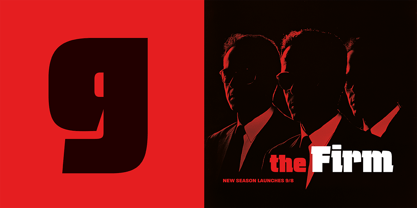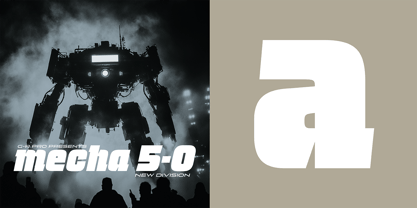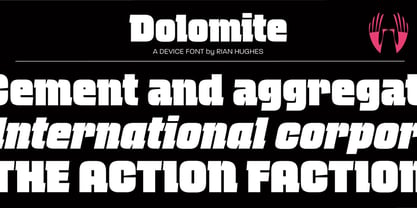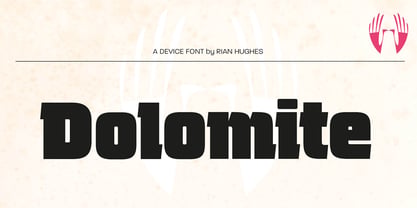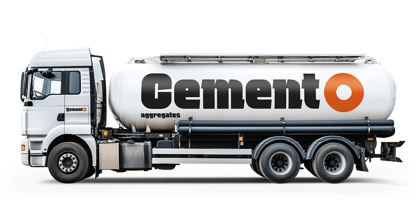
Dolomite
La familia tipográfica Dolomite fue diseñada por Rian Hughes y publicada por Device. Dolomite contiene 2 estilos y opciones de paquete familiar. Más información sobre esta familia
Dolomite is a heavy impactful sans with wedge sterifs top left and bottom right. It has a strong industrial or corporate aesthetic, and is suitable for bold punchy logos, action movies, the tech and construction industry, the automobile sector, and men's products of all kinds – anything where a serious weight and presence is important.
Diseñadores: Rian Hughes
Fundición actual: Device
Device Fonts is the font arm of Rian Hughes’ Device studio, based in West London. An early contributor to FontShop’s FontFont range, Device Fonts was launched in 1997 to carry Hughes’ growing library. It has since released over 250 original typefaces covering more than 1500 individual weights, including custom designs for clients as diverse as Mac User, 2000AD and The Teenage Mutant Ninja Turtles. Rian studied at the London College of Communication in London before working for an advertising agency, Smash Hits, i-D magazine and a series of record sleeve design companies. Under the studio banner Device, he now provides design, custom type and illustration for advertising campaigns, record sleeves, book jackets, graphic novels and television. He has designed posters for Tokyo fashion company Jun Co.’s Yellow Boots chain, the animated on-board safety film for Virgin Airlines, Eurostar’s poster campaign, a collection of Hawaiian shirts, a range of watches for Swatch, an award-winning brochure for MTV Europe’s Music Awards, and numerous book jacket illustrations and CD covers. He has designed hundreds of logos for DC, Marvel, Valiant, Image and other comic book companies for such titles as Batman, the X-Men, James Bond, The Avengers and Spider-Man. Long connected with the world of comics, Rian Hughes' first graphic novel was The Science Service for Belgian publisher Magic Strip. This was followed by Dare for IPC’s short-lived Revolver, an “iconoclastic revamp of the ’50s comic hero Dan Dare”, written by Grant Morrison. His strips from the Galaxy’s Greatest have been collected in Yesterday’s Tomorrows (Dare, Really and Truly plus others) and Tales from Beyond Science (written by Mark Millar, John Smith and Alan McKenzie). More recently he wrote and drew a Batman: Black and White tale, contributed to Vertigo: Magenta, designed the map of the DC Multiverse and was reunited with Morrison for several stories in Heavy Metal magazine. He has contributed to numerous international exhibitions, lectured widely both in the UK and internationally, and a one-man show of his work was held in 2003 the Conningsby Gallery, London. A retrospective monograph, Art, Commercial was published in 2002, and Ten Year Itch, a celebration of the first ten years of Device Fonts, was published in 2005. Other books include https://www.amazon.co.uk/Typodiscography-Rian-Hughes/dp/1910870048">Typodiscography , Custom Lettering of the 20s and 30s, and the all-ages wordless graphic novel I Am A Number. Soho Dives, Soho Divas collects his burlesque drawings, and he sets out his memetics manifesto in Cult-Ure: Ideas Can Be Dangerous. A collection of his logo designs, https://www.amazon.co.uk/Logo-gogo-Branding-Pop-Culture/dp/0993337422">Logo a Gogo was released in 2018 by Korero Press. More recently he has published three novels which incorporate design and typography as an integral part of the narrative: XX, The Black Locomotive and The Absence. He has an extensive collection of Thunderbirds memorabilia, a fridge full of vodka, and a stack of easy listening albums which he plays very quietly. The Premium foundry page can be viewed Here.